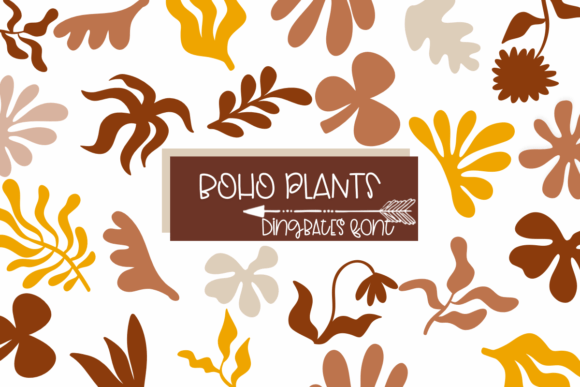
Introducing Boho Plans Font: Elevate Your Creative Projects with a Sketched Theme
Are you looking for a unique and creative font to enhance your projects? Look no further than Boho Plans Font, a dingbats font with a beautiful sketched theme. This versatile font is perfect for a wide range of creative endeavors, from wedding invitations and DIY crafts to decorations, logos, and more.
What is Boho Plans Font?
Boho Plans Font is a dingbats font that features a stunning sketched theme. The font is designed to add a touch of elegance and sophistication to your projects, while also conveying a sense of creativity and playfulness. With its unique and eye-catching design, Boho Plans Font is sure to make your projects stand out from the crowd.
Features of Boho Plans Font
Boho Plans Font comes with a range of features that make it the perfect choice for your creative projects. Some of the key features of this font include:
- Unique Sketched Theme: The font features a beautiful sketched theme that adds a touch of elegance and sophistication to your projects.
- Dingbats Design: Boho Plans Font is a dingbats font, which means it features a range of illustrations and symbols that can be used to enhance your projects.
- Versatile: This font is perfect for a wide range of creative projects, from wedding invitations and DIY crafts to decorations, logos, and more.
- Easily Customizable: Boho Plans Font is easily customizable, allowing you to adjust the font to suit your needs.
Uses of Boho Plans Font
Boho Plans Font is a versatile font that can be used for a wide range of creative projects. Some of the most popular uses of this font include:
- Wedding Invitations: Boho Plans Font is perfect for creating beautiful and unique wedding invitations that will set the tone for your special day.
- DIY Crafts: This font is great for DIY crafts, such as making cards, gift tags, and other handmade items.
- Decorations: Boho Plans Font can be used to create beautiful decorations, such as wall art, banners, and more.
- Logos: This font is also perfect for creating unique and eye-catching logos for your business or brand.
- Social Media Graphics: Boho Plans Font can be used to create stunning social media graphics, such as Facebook posts, Instagram stories, and more.
Benefits of Using Boho Plans Font
There are many benefits to using Boho Plans Font for your creative projects. Some of the key benefits include:
- Unique and Eye-Catching Design: Boho Plans Font features a unique and eye-catching design that will make your projects stand out from the crowd.
- Versatility: This font is perfect for a wide range of creative projects, making it a great addition to your font collection.
- Easily Customizable: Boho Plans Font is easily customizable, allowing you to adjust the font to suit your needs.
- High-Quality: This font is of high quality, ensuring that your projects look professional and polished.
Boho Plans Font is a unique and versatile font that is perfect for a wide range of creative projects. With its beautiful sketched theme and dingbats design, this font is sure to add a touch of elegance and sophistication to your projects. Whether you are creating wedding invitations, DIY crafts, decorations, logos, or social media graphics, Boho Plans Font is the perfect choice. So why wait? Download Boho Plans Font today and start creating stunning projects!